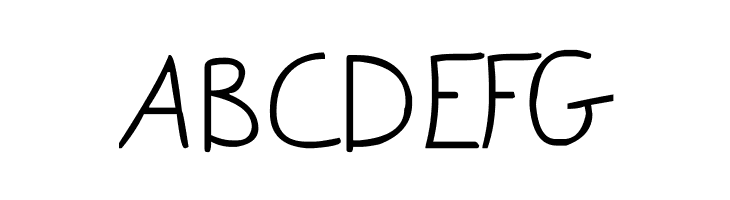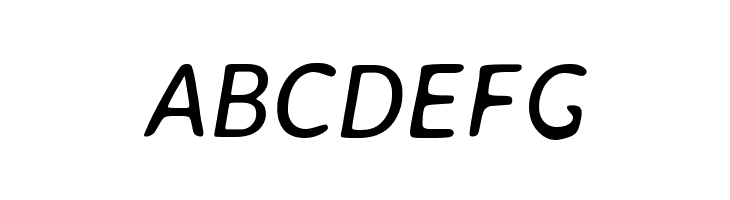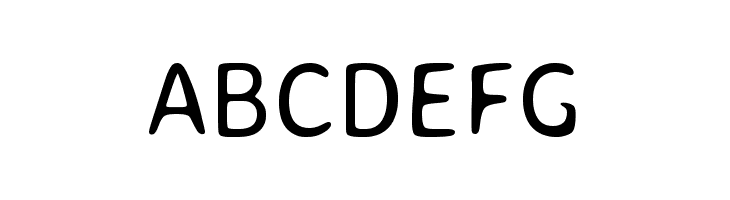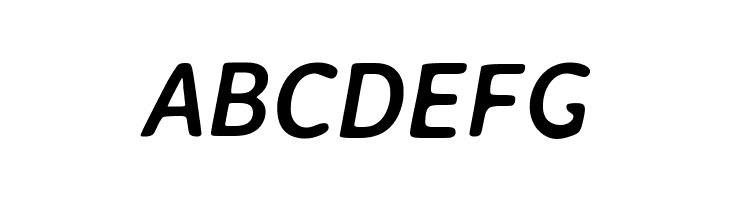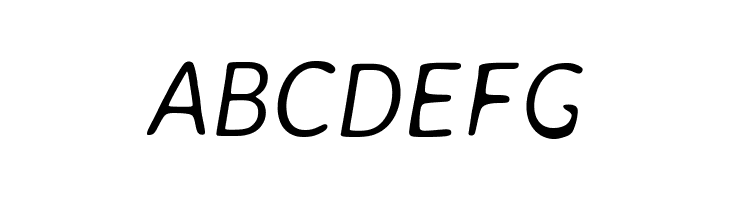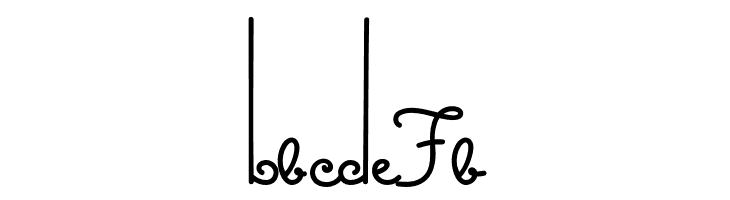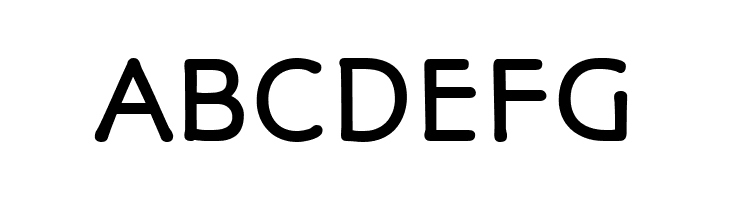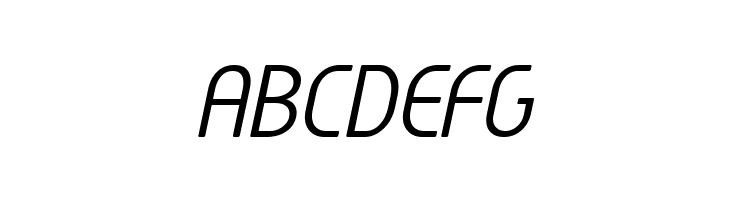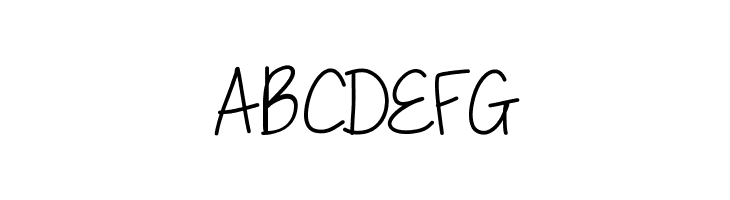
A playful, casual handwritten font with smooth, flowing lines.
A smooth, rounded font with a slight slant, offering a friendly and approachable style.
A smooth, rounded sans-serif font with a friendly, hand-drawn appearance.
A bold, italicized font with a smooth, rounded, and modern appearance.
A smooth, flowing sans-serif font with a slight slant and rounded characters.
A playful, handwritten script with smooth, flowing lines and consistent stroke thickness.
A playful, rounded font with smooth curves and a friendly appearance.
A modern, oblique sans-serif font with smooth curves and consistent stroke width.
A playful, casual handwritten font with smooth, flowing lines.